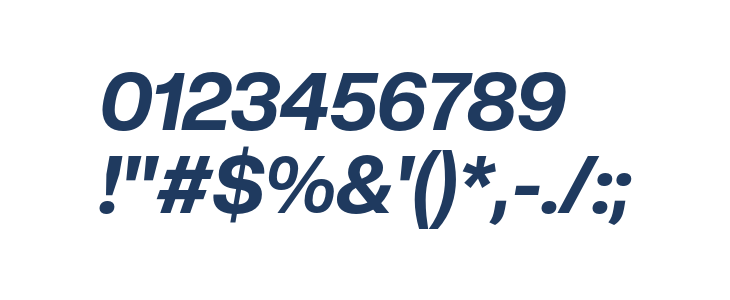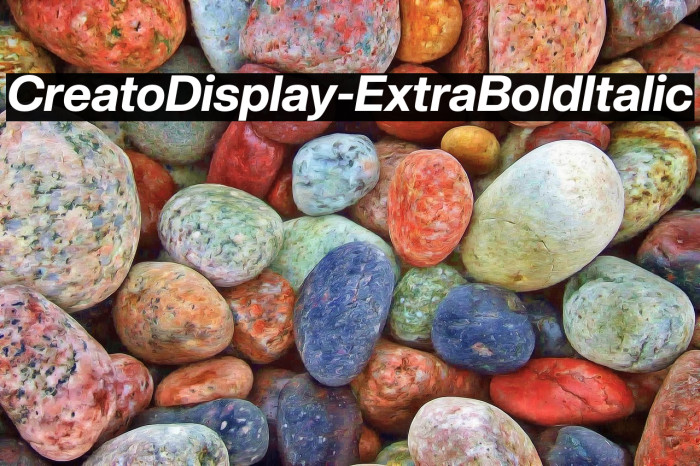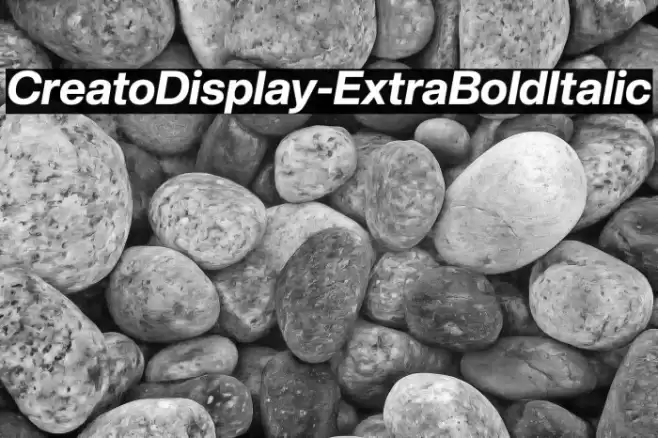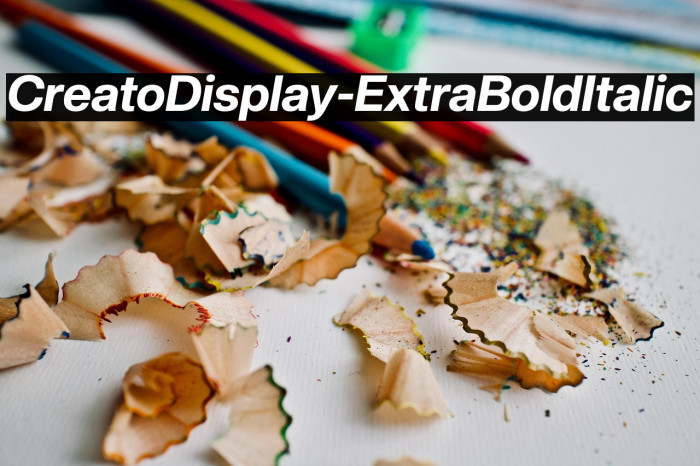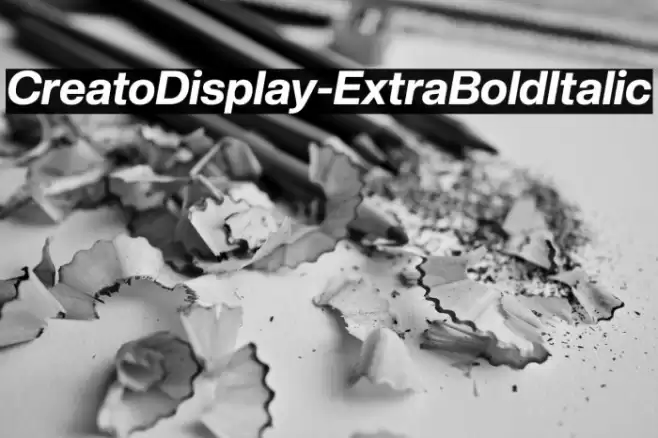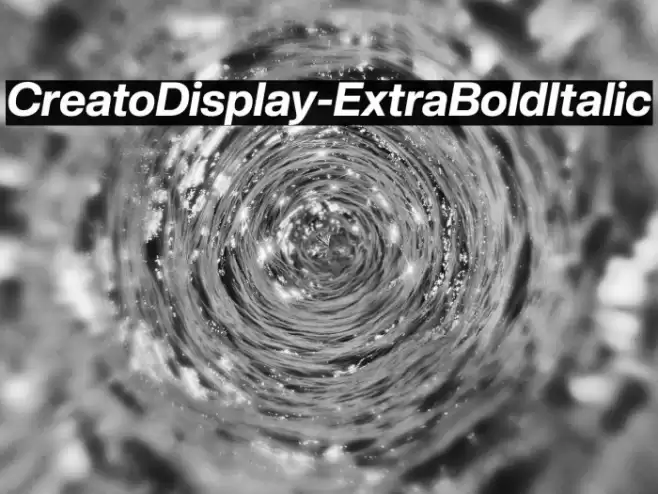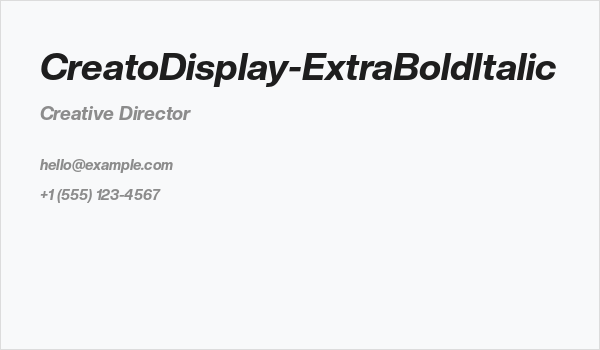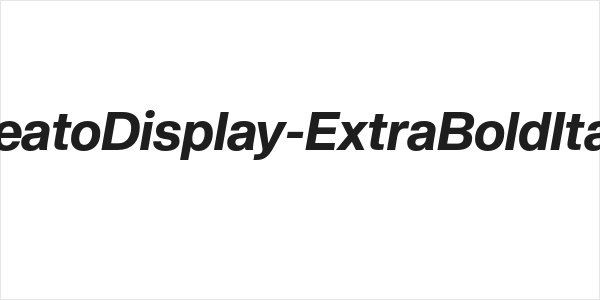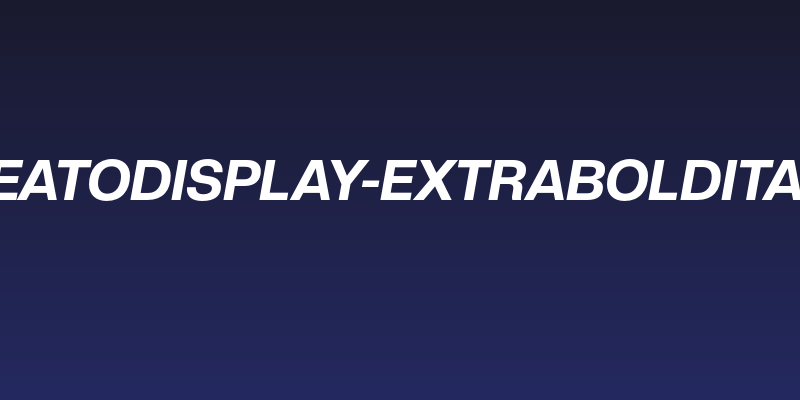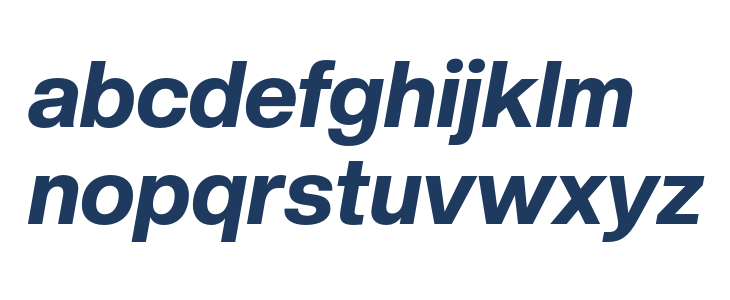
CreatoDisplay-ExtraBoldItalic Font
CreatoDisplay-ExtraBoldItalic Description
This font exhibits a bold and dynamic presence with its extra bold weight and italic style. The characters are designed with a modern aesthetic, featuring smooth curves and a slight slant that adds a sense of motion and energy. The uppercase letters are strong and commanding, while the lowercase letters maintain readability with their balanced proportions. The numerals are clear and robust, making them suitable for impactful displays. Special characters are well-integrated, ensuring versatility in various design contexts. Overall, this font is ideal for projects that require a bold and contemporary look.
| Use Case | Headlines, Logos, Advertising |
| Proposed Projects | Ideal for branding, advertising, headlines, and digital media where a strong visual impact is needed. |